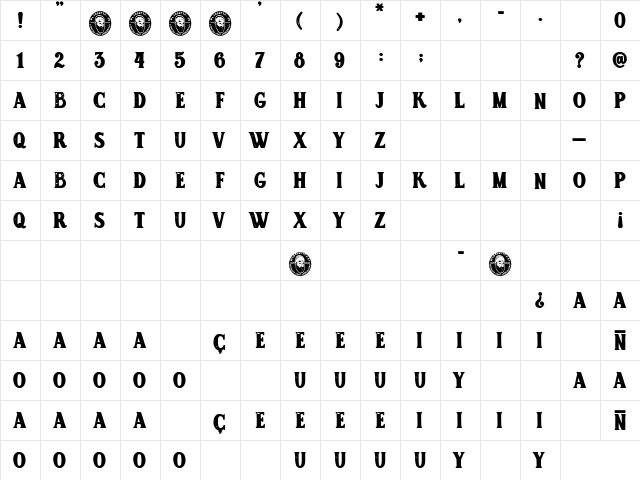
San Judas Tadeo Regular
| Designer | Woodcutter Manero |
Design Context for San Judas Tadeo Typeface
San Judas Tadeo offers clean, dependable letterforms without strong stylistic allegiance, making it a practical choice for designers who need flexibility.